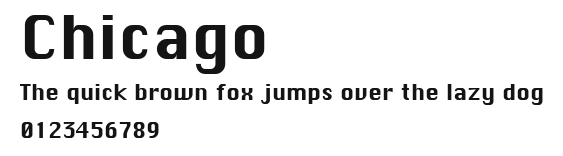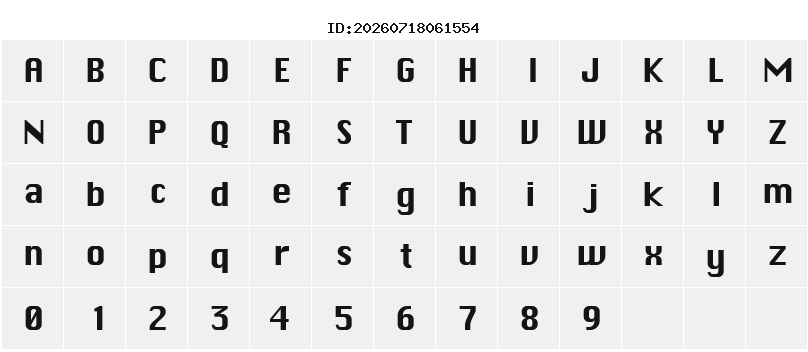
Chicago Preview
• Font Name: Chicago
• Full Font Name: Chicago
About Chicago.ttf
Chicago.ttf is a modern, elegant sans-serif font designed for ultimate readability and visual harmony. Perfect for branding, headlines, web design, and print materials.